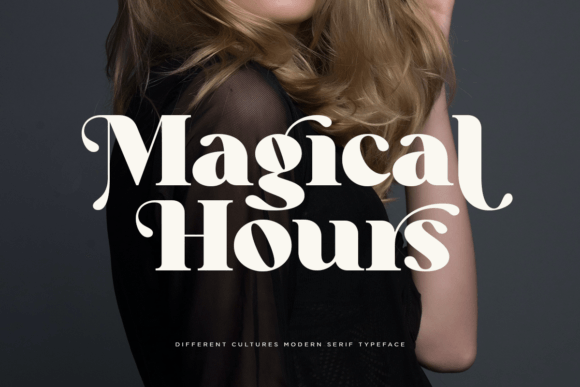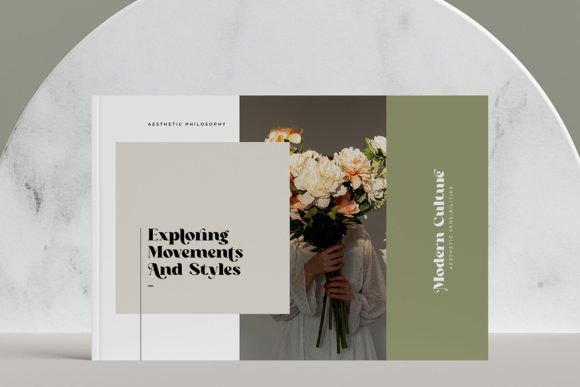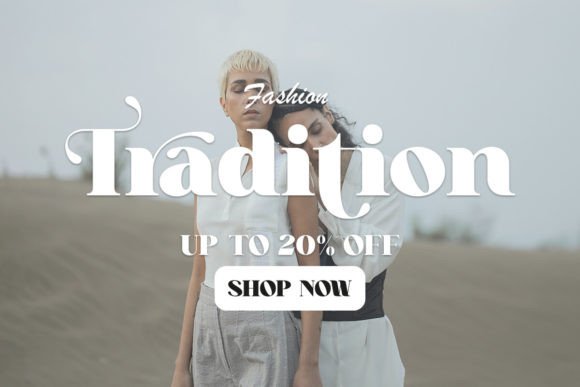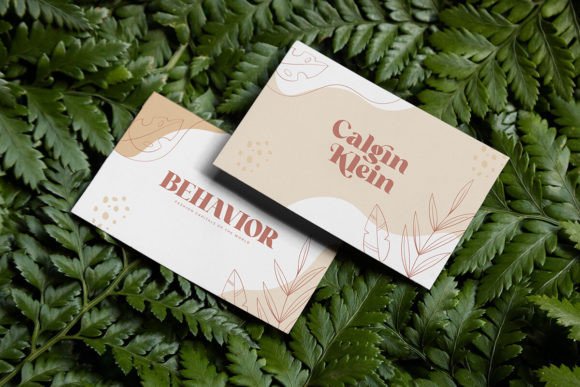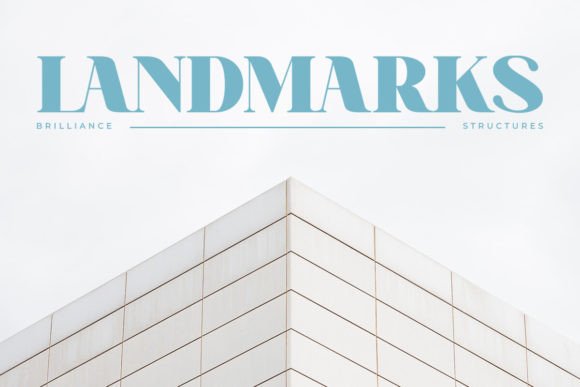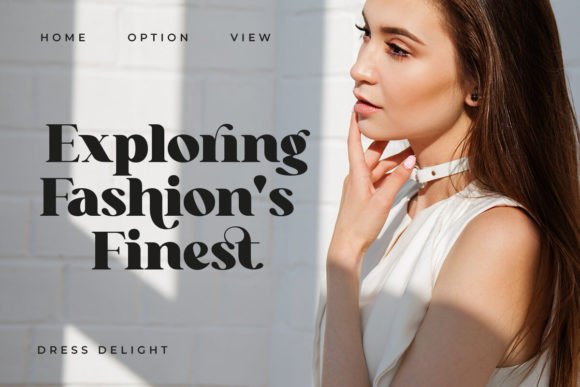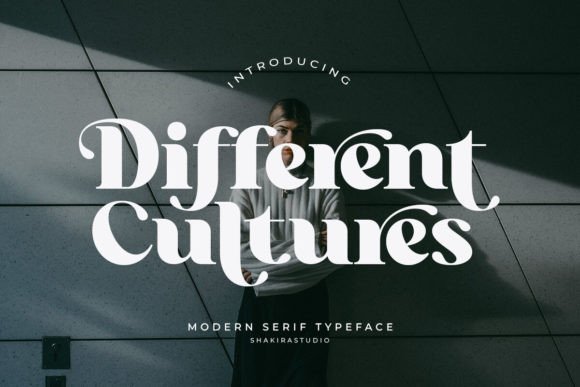
Introducing Different Cultures: A Modern Serif Display Font
In the ever-evolving world of design, typography plays a crucial role in conveying messages, expressing creativity, and setting trends. For designers and crafters seeking a font that embodies the latest design trends, we are excited to introduce “Different Cultures,” a modern serif display font that redefines the boundaries of typographic excellence.
A Perfect Fusion of Bold and Thin Strokes
“Different Cultures” is a masterfully crafted font that seamlessly blends bold and thin strokes, creating a visually stunning balance that captures the essence of contemporary design. This modern serif display font transcends conventional styles, offering a unique and captivating aesthetic that sets it apart from other fonts in the market.
With its meticulously crafted curves and details, “Different Cultures” is designed to make a maximum impact on your designs. Whether you’re working on a branding project, a website, or a marketing campaign, this font is sure to elevate your typography and leave a lasting impression on your audience.
Exploring the Font’s Diverse Array of Alternates and Ligatures
One of the standout features of “Different Cultures” is its diverse array of alternates and ligatures, providing designers with a stylish toolkit to customize and enhance their typographic creations. With a range of options to choose from, you can experiment with different combinations to create a unique look that reflects your brand’s personality.
From elegant swashes to bold alternates, “Different Cultures” offers a wealth of creative possibilities, allowing you to push the boundaries of typographic expression. Whether you’re looking to add a touch of sophistication or a dash of whimsy, this font has got you covered.
A Visual Journey that Seamlessly Blends Modernity with Timeless Elegance
“Different Cultures” is more than just a font; it’s a visual journey that seamlessly blends modernity with timeless elegance. This font is designed to take your designs on a path of discovery, where every curve and detail is carefully crafted to create a lasting impression.
With its perfect blend of modern and classic elements, “Different Cultures” is the perfect choice for designers seeking a font that will stand the test of time. Whether you’re working on a project that requires a touch of sophistication or a bold statement, this font is sure to deliver.
Elevate Your Projects with the Unique and Captivating Aesthetics of Different Cultures
In today’s design landscape, standing out from the crowd is crucial. With “Different Cultures,” you can elevate your projects with a unique and captivating aesthetic that sets a new standard for stylish and versatile modern serif display fonts.
Whether you’re a designer, a crafter, or a DIY enthusiast, “Different Cultures” is the perfect choice for anyone seeking a font that embodies the latest design trends. With its versatility, creativity, and attention to detail, this font is sure to inspire and empower you to create something truly remarkable.
Key Features of Different Cultures
- Modern serif display font with bold and thin strokes
- Diverse array of alternates and ligatures
- Meticulously crafted curves and details
- Perfect fusion of modernity and timeless elegance
- Stylish and versatile design
| Author | Shakira Studio |
In conclusion, “Different Cultures” is a game-changing font that is sure to revolutionize the world of typography. With its unique and captivating aesthetic, this modern serif display font is the perfect choice for designers and crafters seeking a stylish and versatile solution for their design needs.